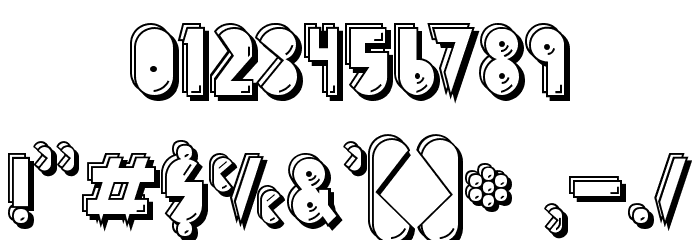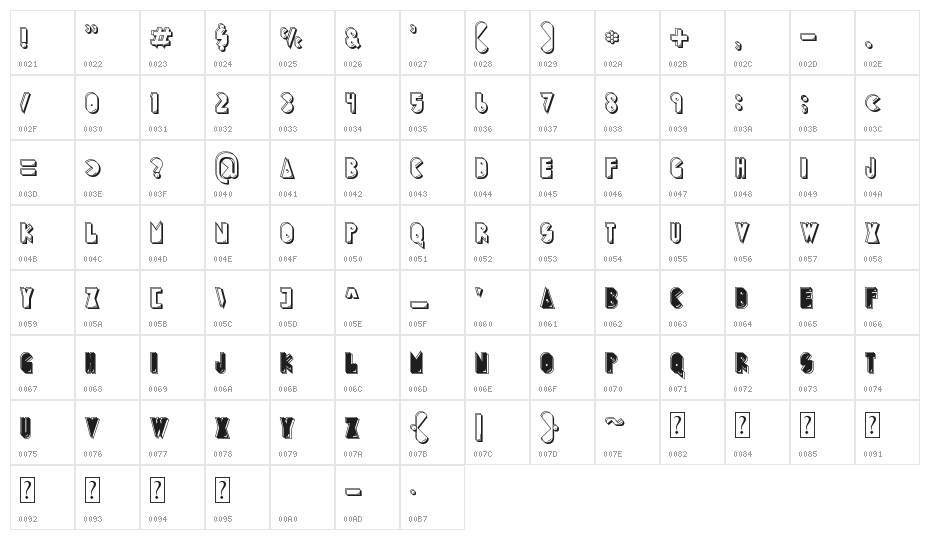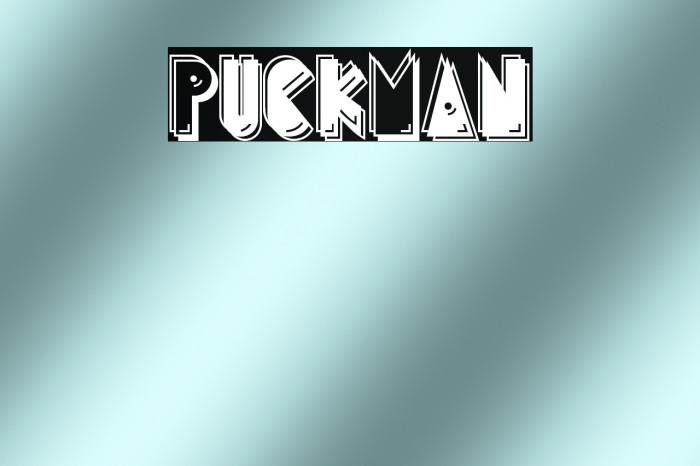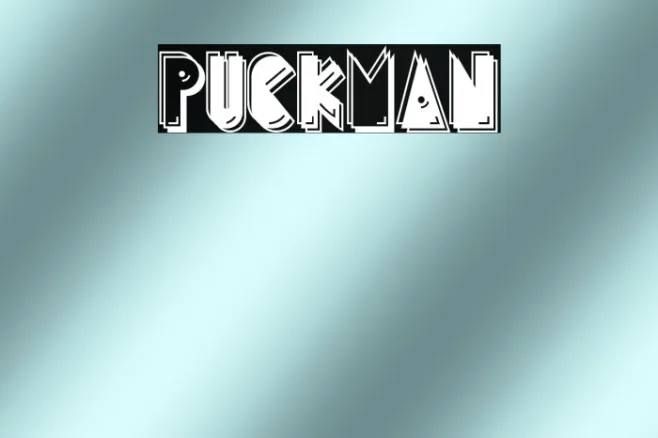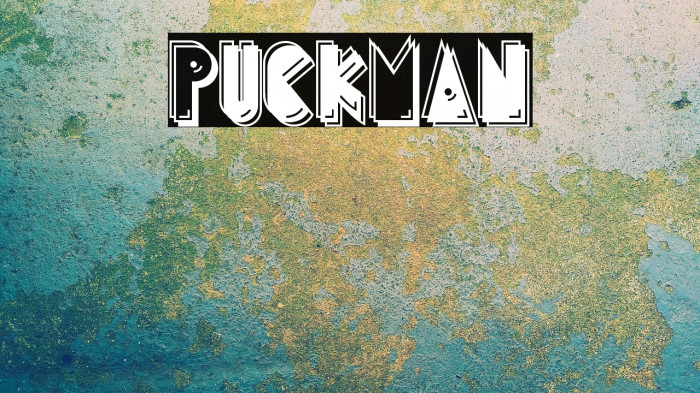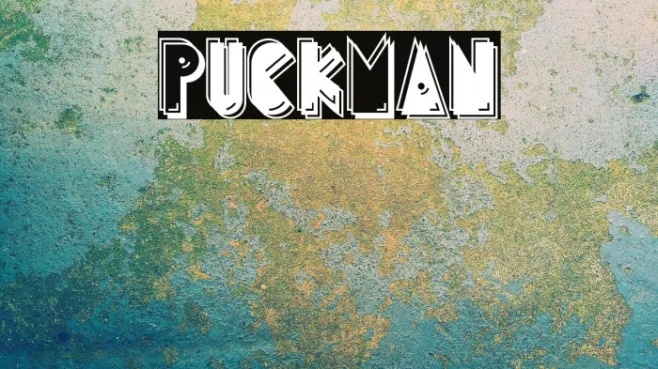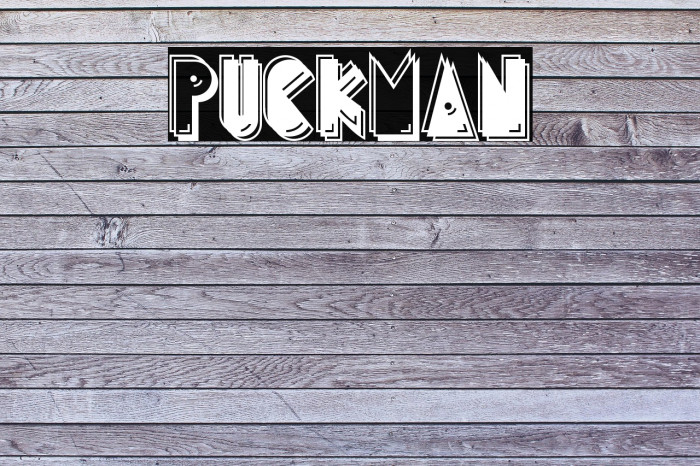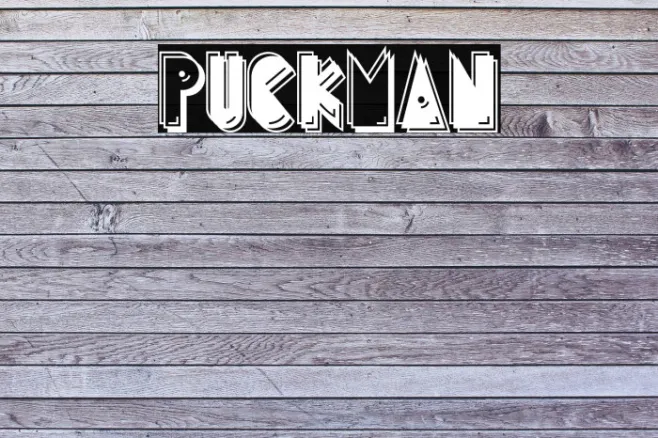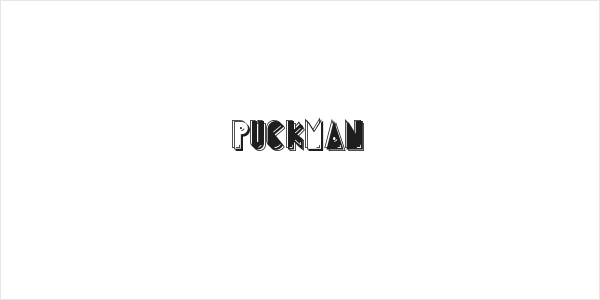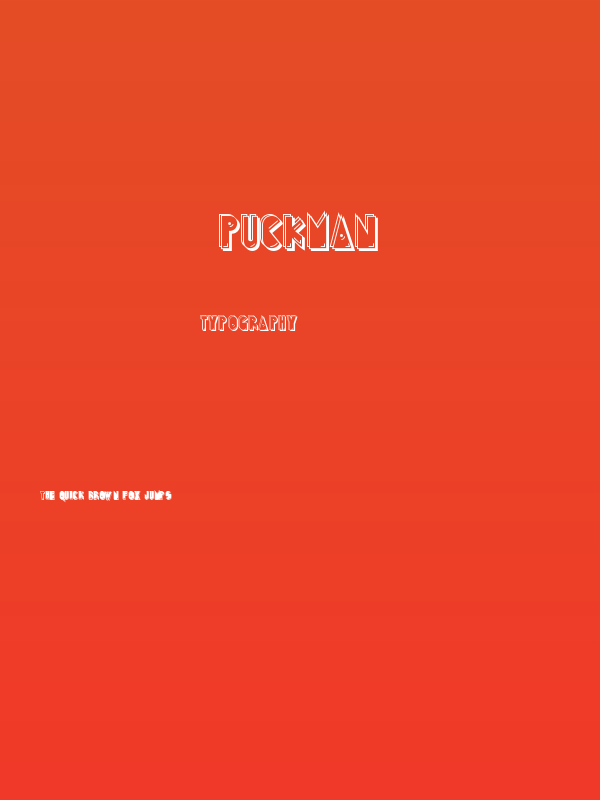
PuckMan Font
PuckMan Description
This font features a bold, playful design with a distinct retro arcade vibe. The characters are outlined with a thick black border, giving them a three-dimensional appearance. Each letter has a unique cut-out detail, reminiscent of classic video game graphics. The font is highly stylized, with sharp angles and geometric shapes, making it stand out for its decorative appeal. The numbers and special characters follow the same design principles, ensuring consistency across all glyphs. This font is perfect for projects that aim to capture a nostalgic or playful atmosphere.
| Overall Style | Retro, Playful |
| Use Case | Logos, Posters, Headlines |
| Proposed Projects | Ideal for video game graphics, retro-themed posters, and playful branding projects. |